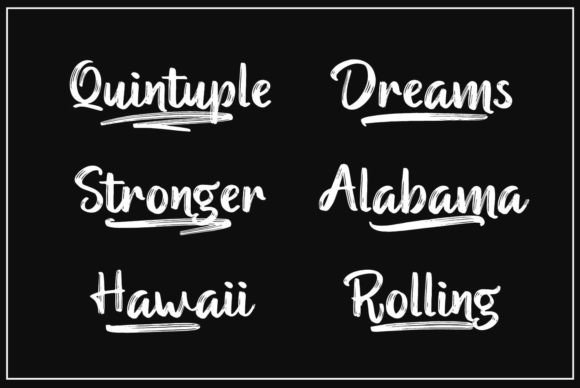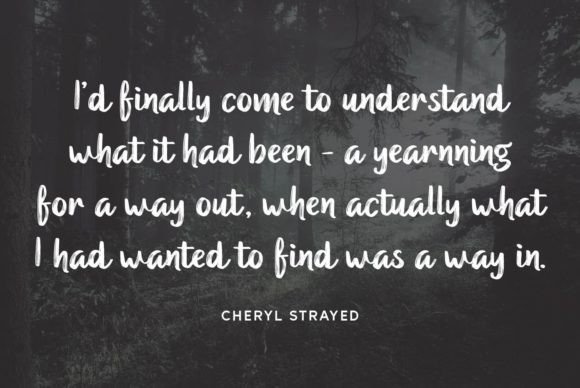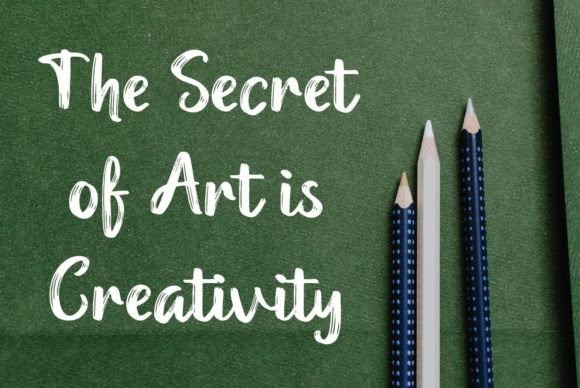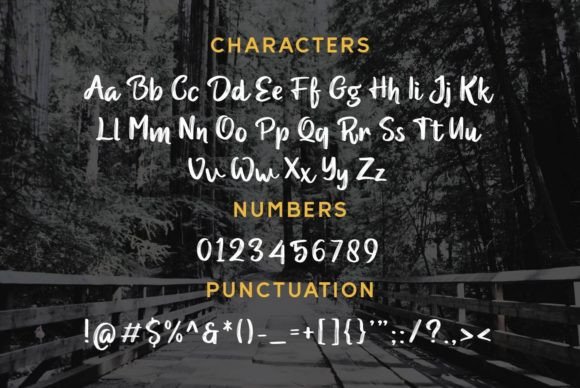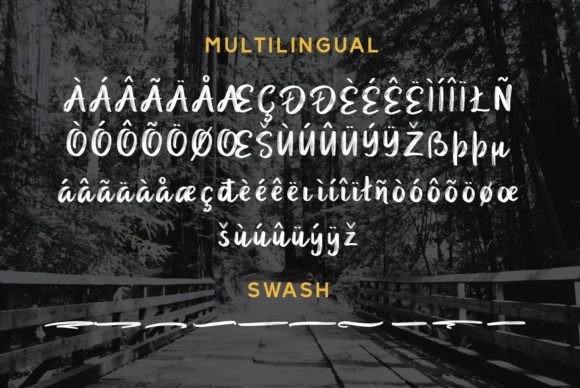
About Quick Roll Font
“Quick Roll” is a brushed and well-rounded handwritten font crafted for crafty projects that require authentic typography. Its versatility makes it well-suited for a variety of applications such as wedding invitations, birthday cards, personal branding, elegant logos, and more. By incorporating “Quick Roll” into your designs, you can be confident that your creations will stand out with an authentic and charming typography.
The brushed and well-rounded qualities of “Quick Roll” make it adaptable for a range of projects. Its handwritten style adds a personal and human touch, ideal for conveying warmth and authenticity in your designs.
Whether you’re creating wedding invitations that demand an elegant and personalized feel, designing birthday cards with a crafty touch, or establishing a personal brand identity, “Quick Roll” can be the typography solution that adds uniqueness to your projects.
The authentic typography of “Quick Roll” contributes to creating a distinctive visual language. Its well-rounded and balanced design ensures that the font complements a variety of design elements, allowing it to seamlessly integrate into different contexts.
In summary, “Quick Roll” is more than just a font; it’s a versatile and expressive tool that can enhance your crafty projects. Utilize it for its brushed and well-rounded handwritten style to add authenticity and charm to your designs, making them stand out with an elegant and appealing touch.